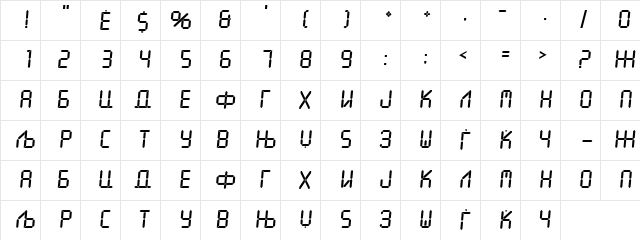
Complete X_Liquid Crystal Normal glyph index. Displaying only characters natively supported by X_Liquid Crystal Normal font.
X_Liquid Crystal is a composed and adaptable typeface that performs quietly and consistently across a wide range of design contexts.